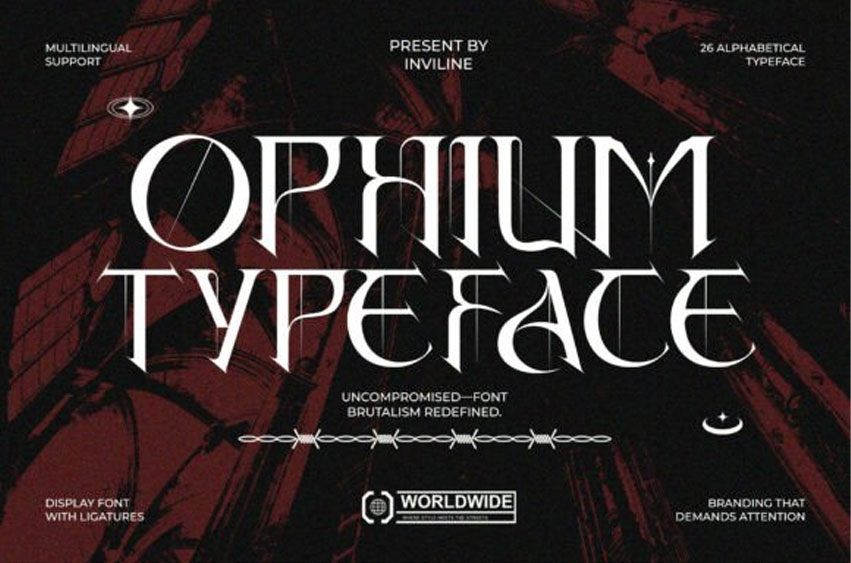
Ophium Font is a brutalist display typeface that fuses elegance with aggression. With razor-sharp serifs, unique ligatures, and barbed wire energy, this font commands attention in every design.
Perfect for streetwear branding, metal music artwork, editorial layouts, and experimental posters. Ophium isn’t just a typeface — it’s a visual weapon.
Comes with 26 uppercase glyphs, multilingual support, and OpenType ligatures, available in OTF and TTF formats.